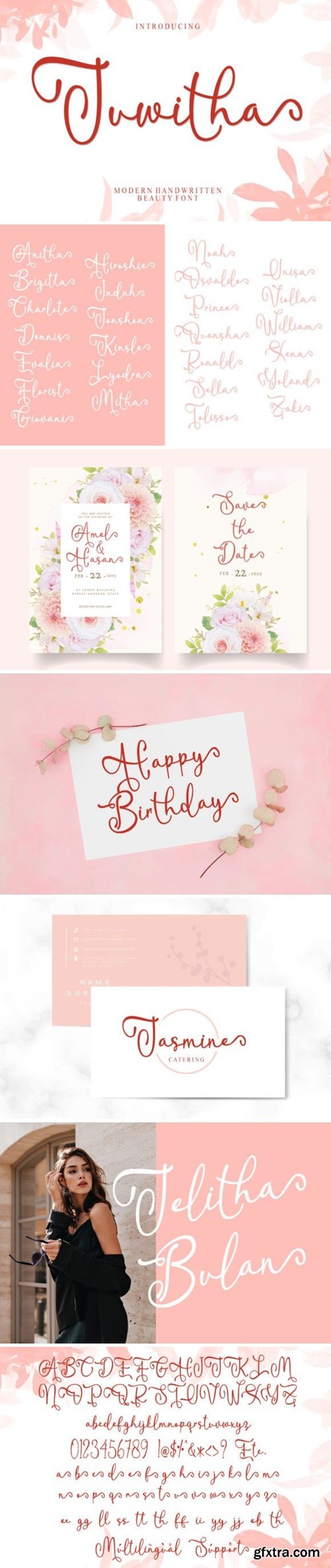
Juwitha is a lovely handwitten font featuring charming, playful characters that seem to dance along the baseline. It will add a luxury spark to any design project that you wish to create! This font is PUA encoded which means you can access all of the glyphs and swashes with ease!